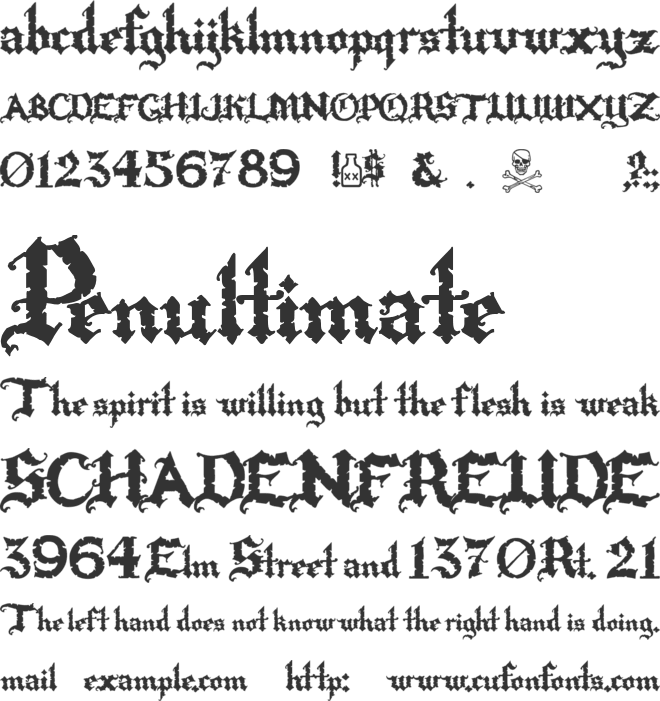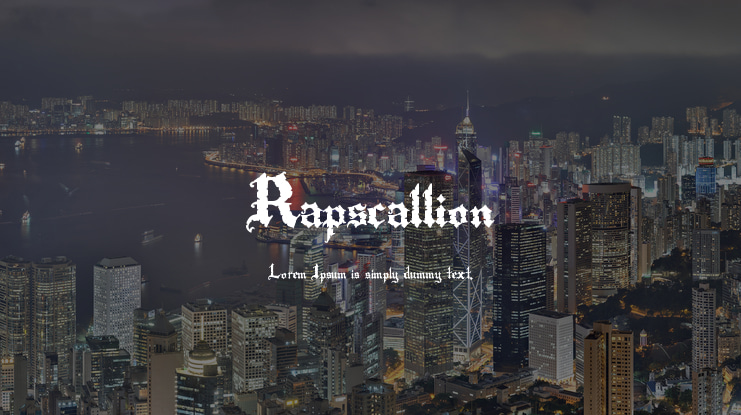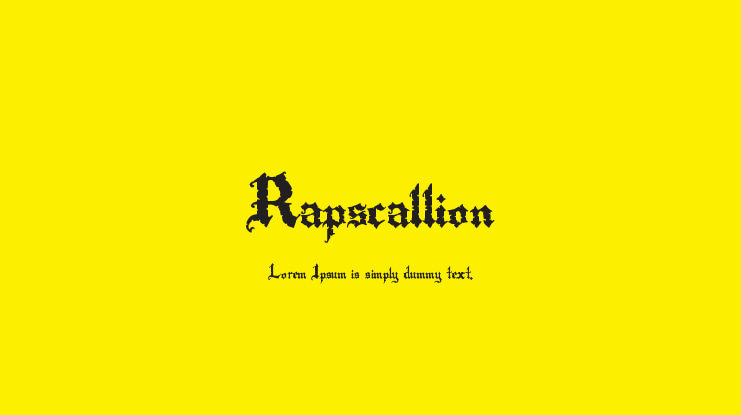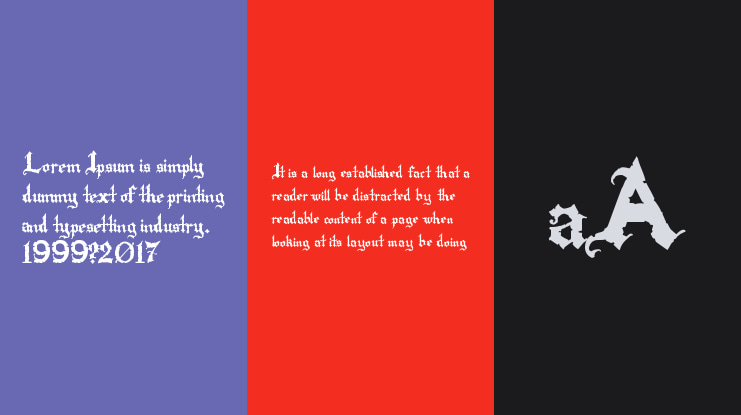
Rapscallion Font
Rapscallion is a FREE pirate-style font inspired by Melbourne, Australia folk-punk band MUTINY (http://www.mutiny.com.au). Details show best at 48-pt or higher (prints cleaner than appears on screen). Questions/Comments: